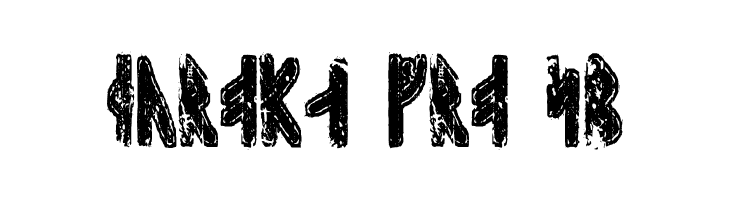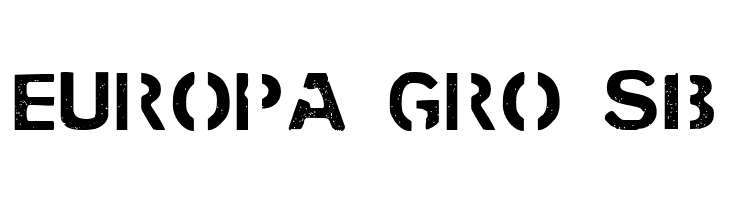
A bold, distressed font with a vintage, textured appearance.
A bold, textured runic font with a rugged, ancient appearance.
A bold, distressed font with a vintage, grunge aesthetic.
A rugged, distressed font with a hand-drawn, textured appearance.
A distressed, runic-inspired font with angular, geometric shapes.